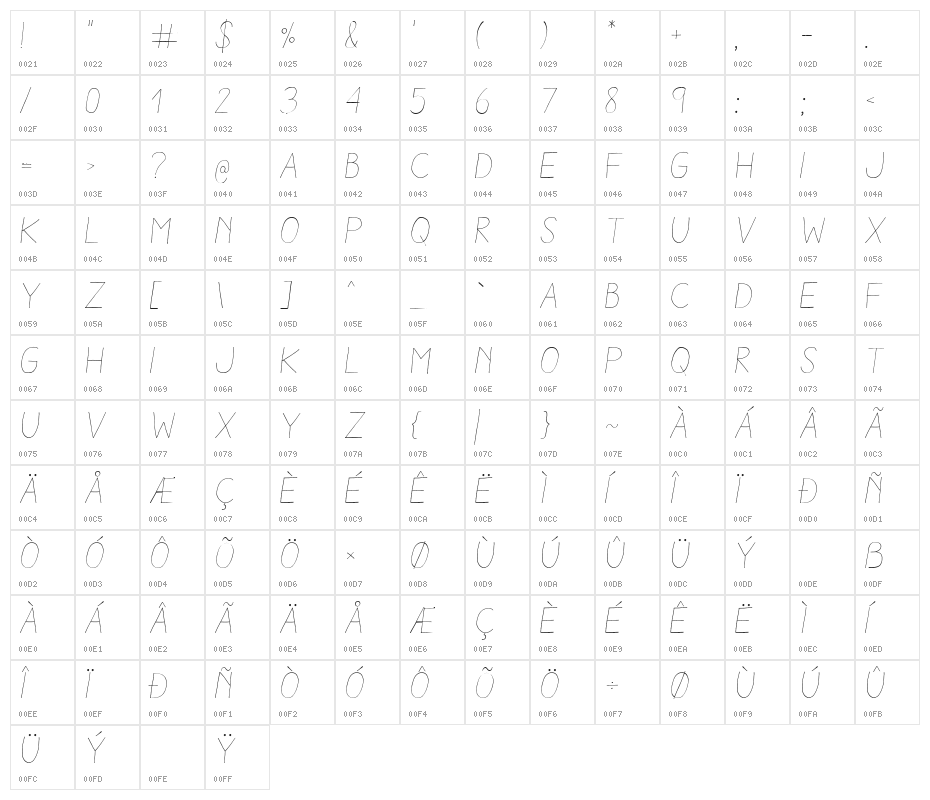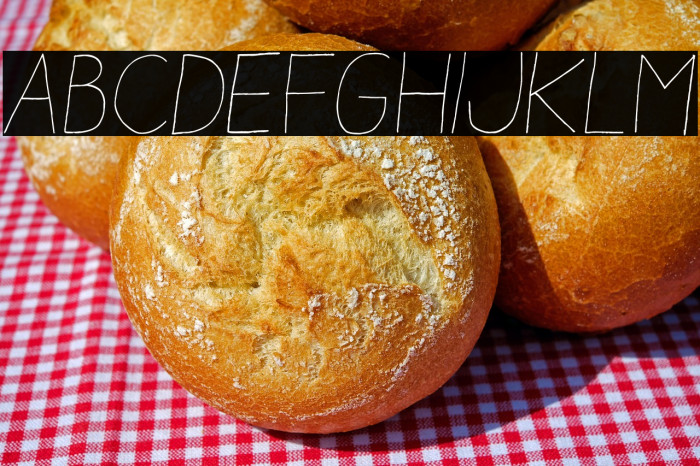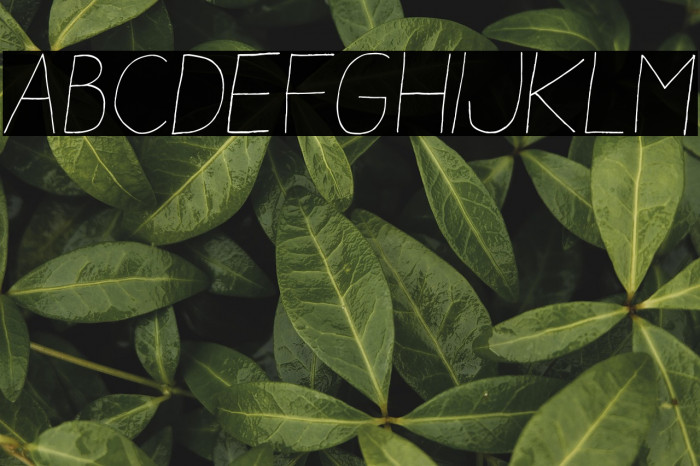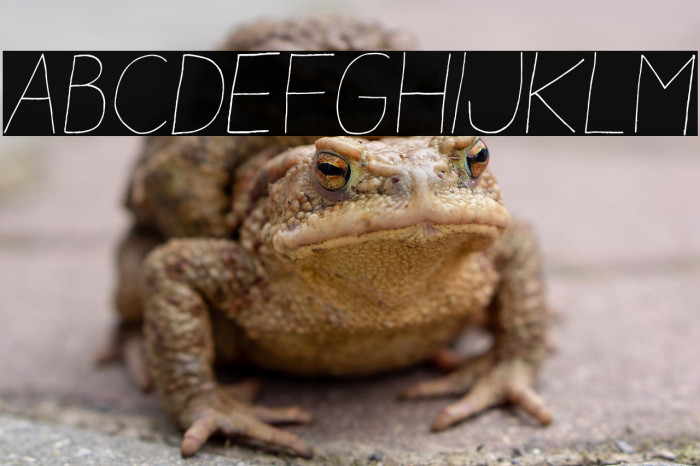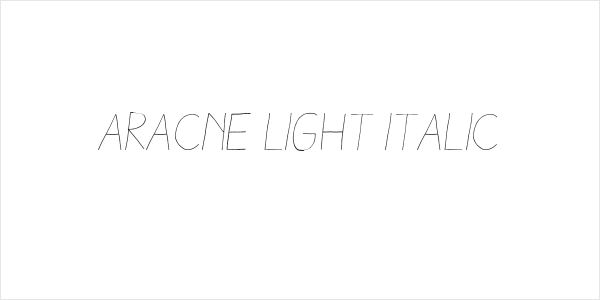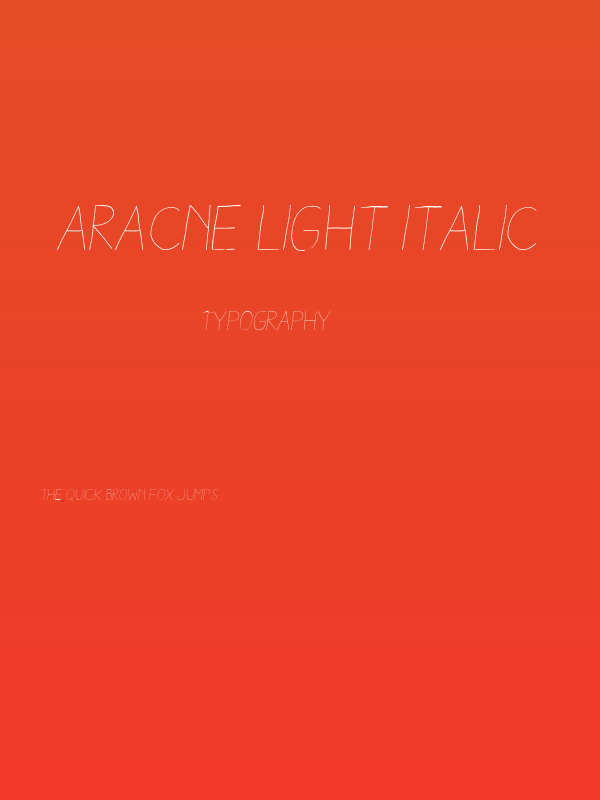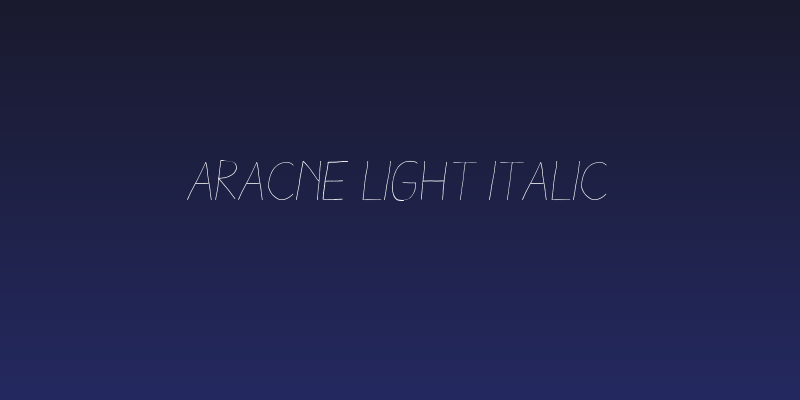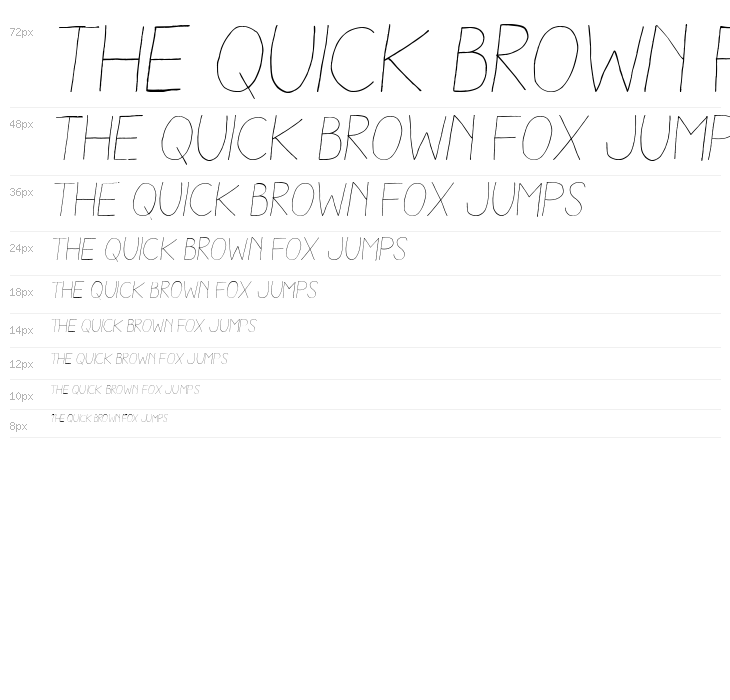
Aracne Light Italic Font
Aracne Light Italic Description
This font features a light and airy design with a subtle italic slant, giving it a graceful and elegant appearance. The characters are thin and elongated, with a consistent stroke width that adds to its delicate feel. The spacing between letters is generous, enhancing readability while maintaining a sophisticated look. The font's style is modern and minimalistic, making it versatile for various design applications. Its clean lines and understated elegance make it suitable for both digital and print media, where a touch of refinement is desired.
Proposed ProjectsIdeal for wedding invitations, fashion magazines, elegant branding, and minimalist design projects.